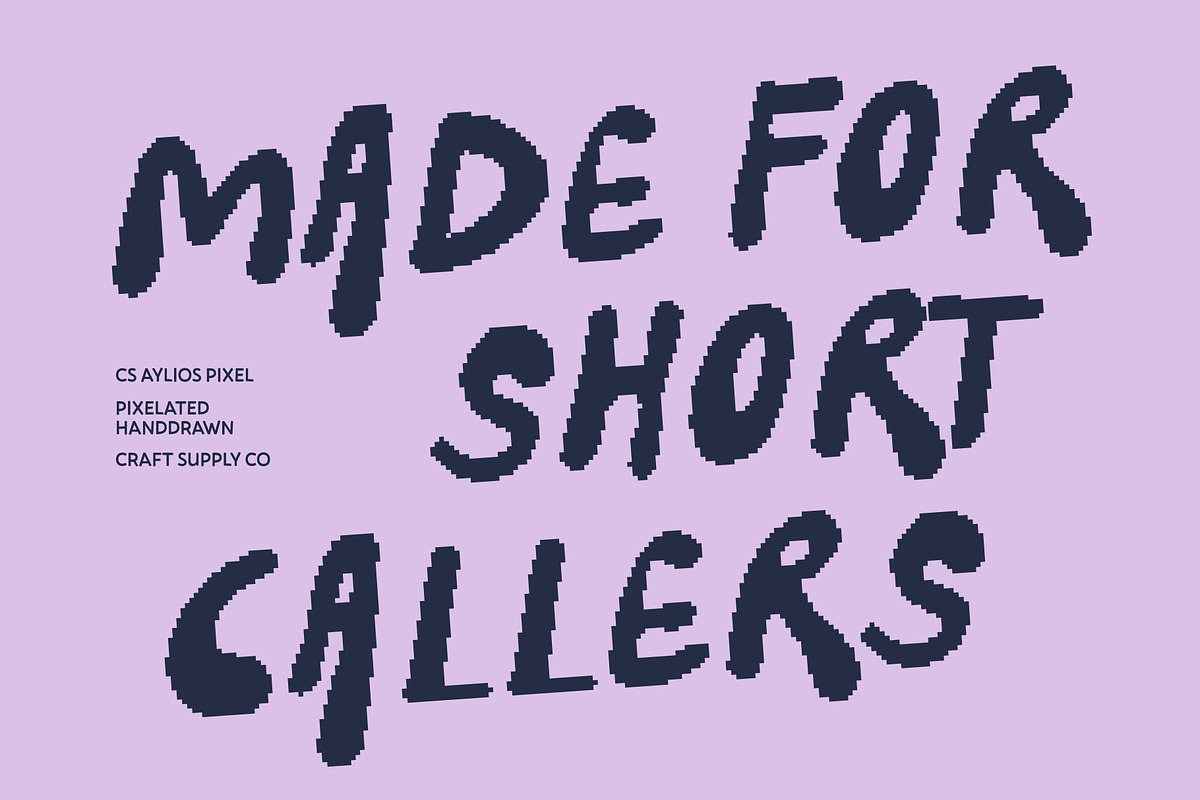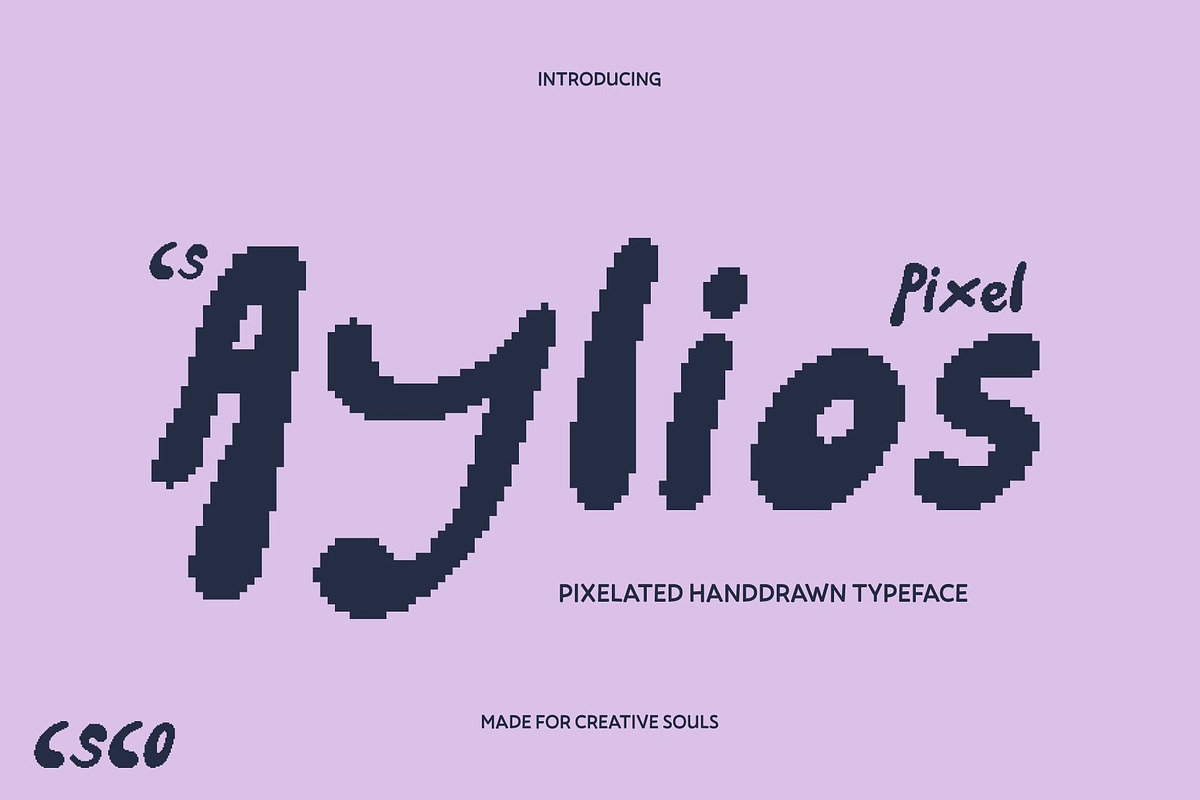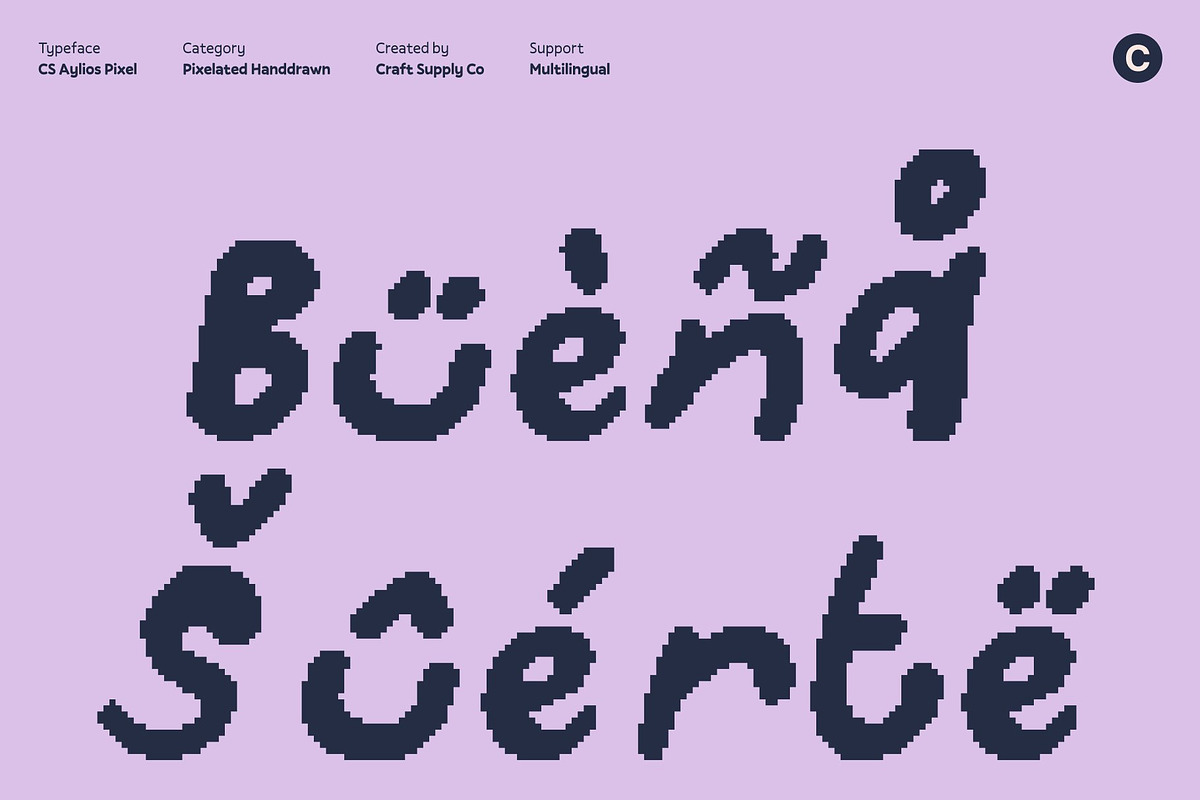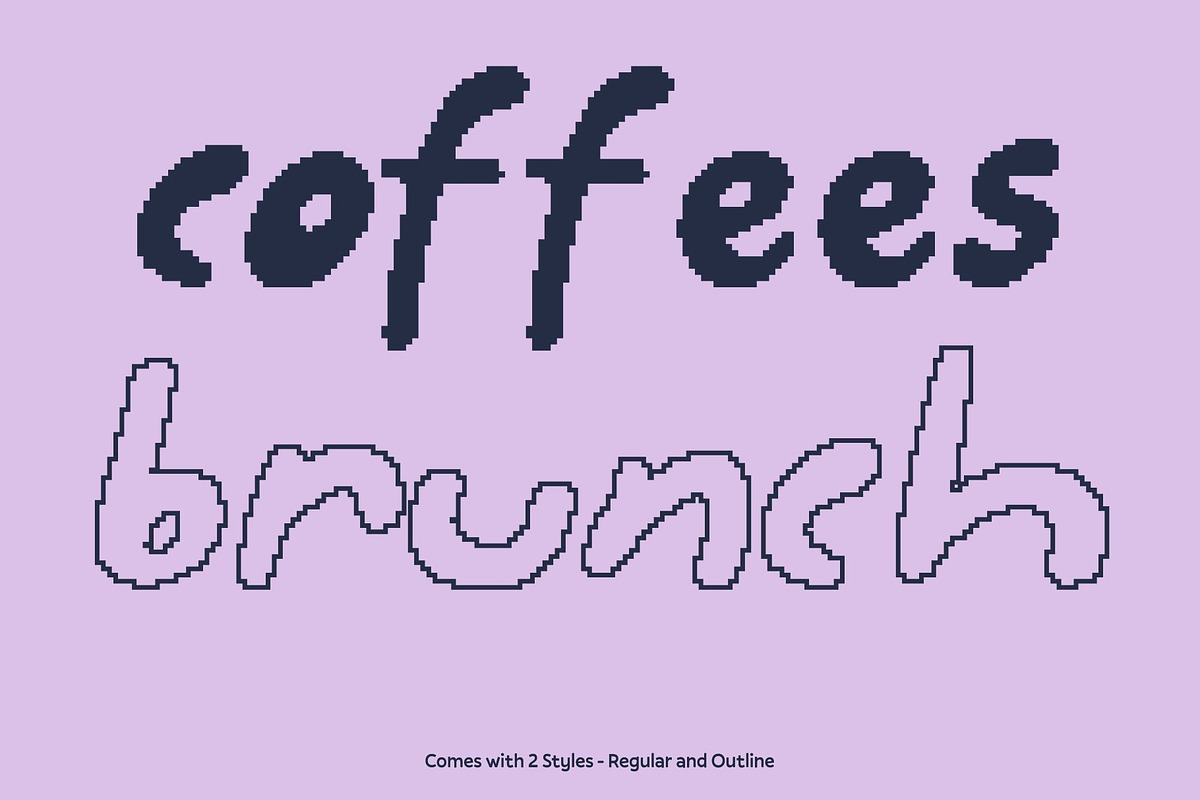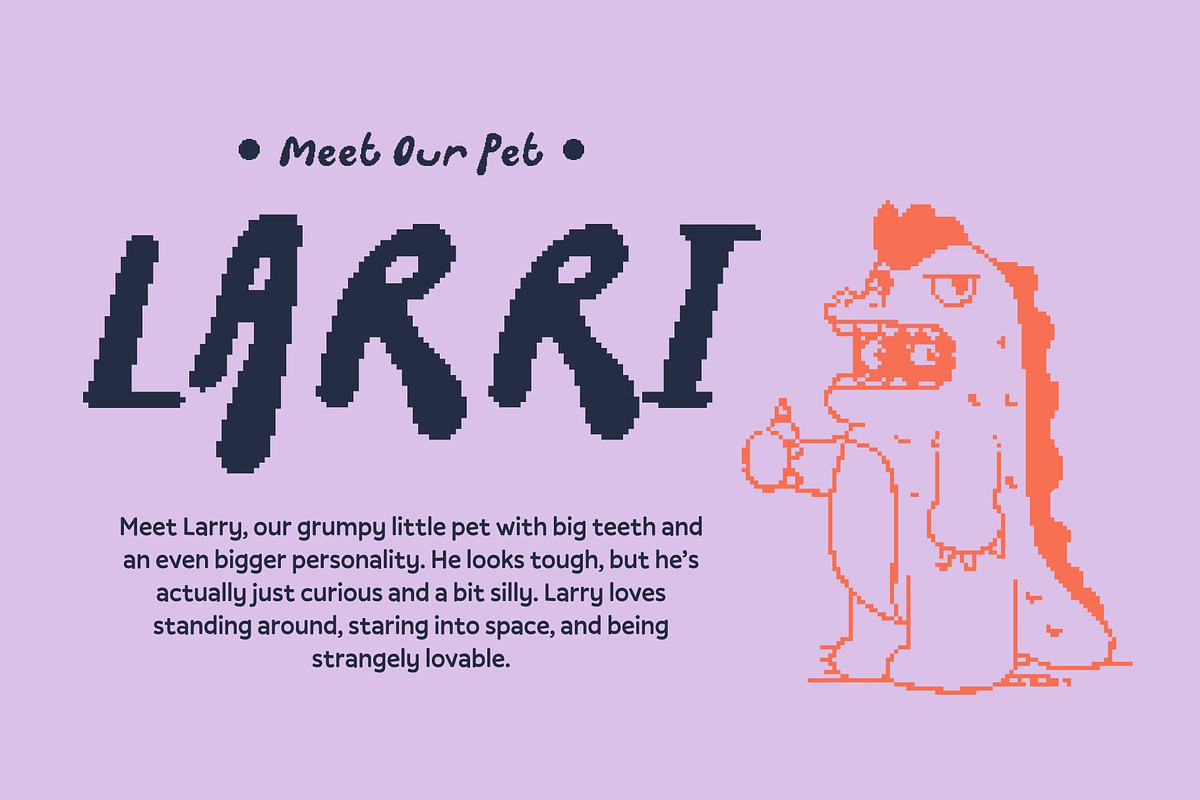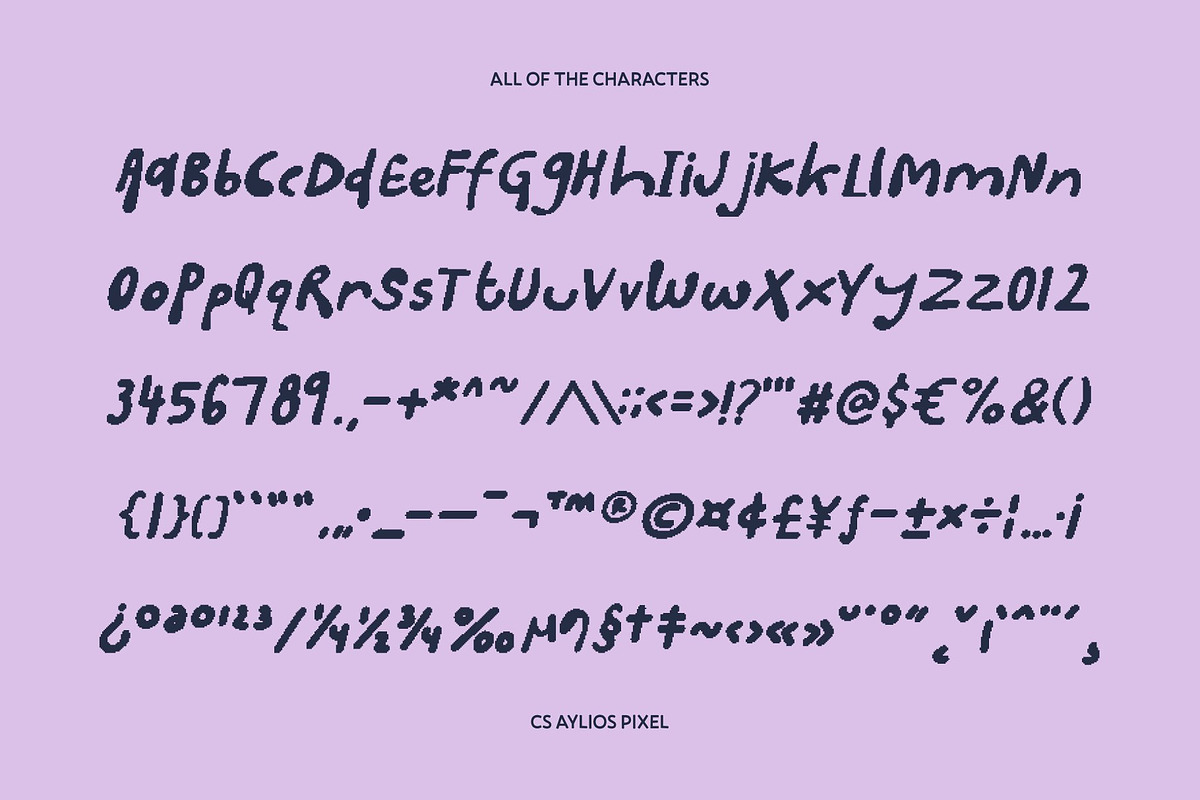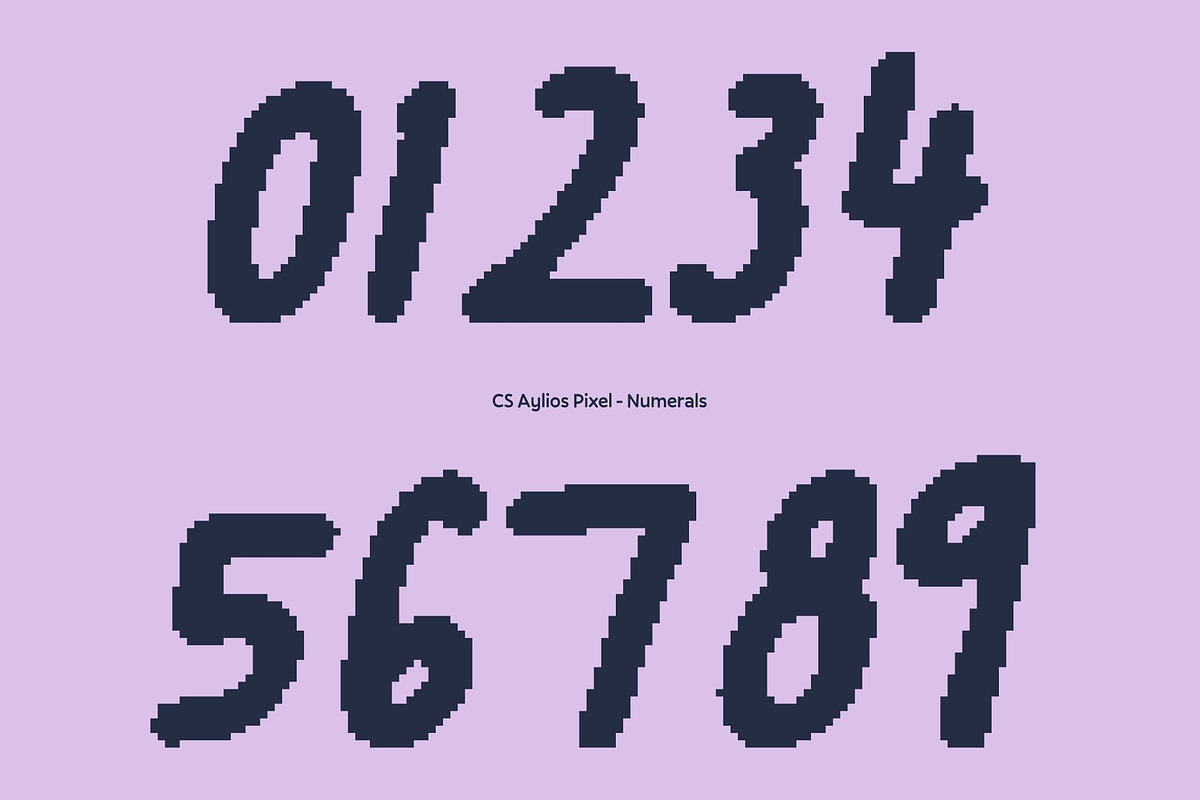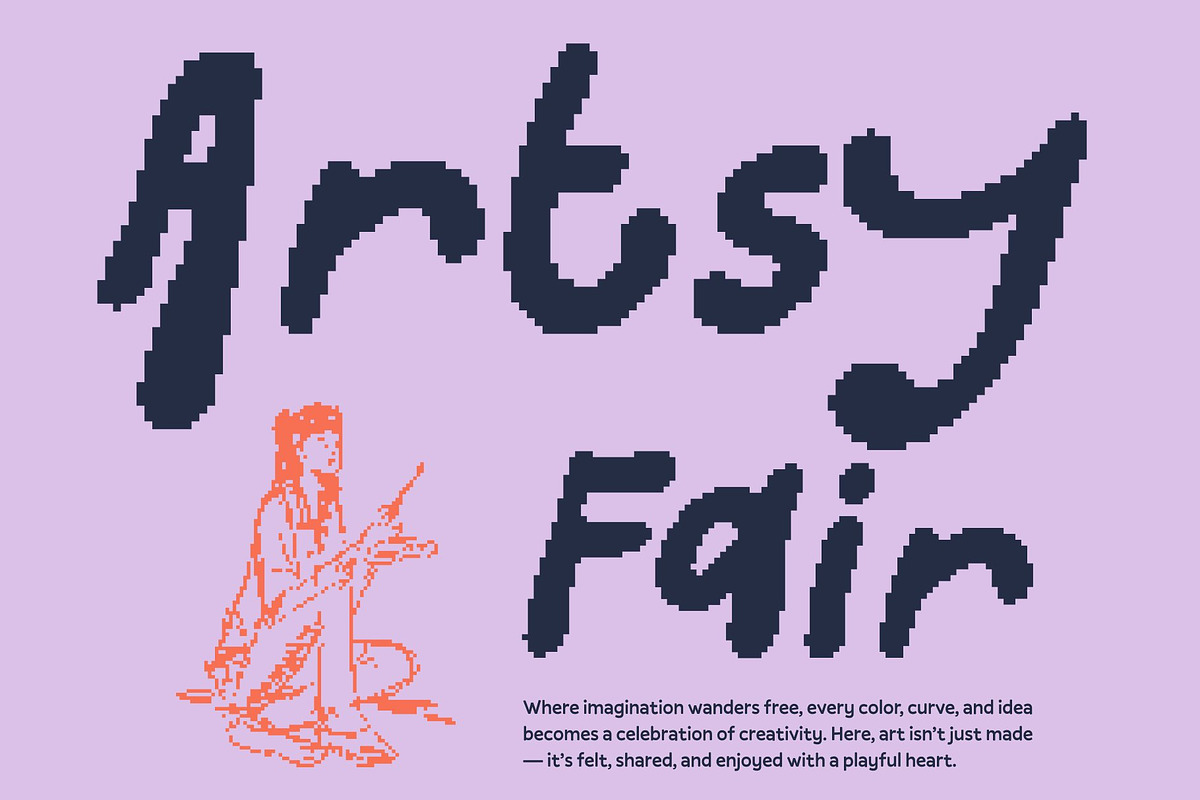
CS Aylios Pixel
CS Aylios Pixel – Funky Hand-Drawn Display Font with Sweet Groovy Charm
Playful Groovy Shapes with Pixel-Drawn Personality This is a funky hand-drawn display font bursting with groovy energy and playful charm, enhanced by a distinctive pixel style. Each letter is shaped with bold curves and decorative forms inspired by the smooth, swirling motion of sweet cream, while pixel details introduce a nostalgic digital twist.
Sweet Cream Curves with Retro Digital Flavor The decorative curves bring a creamy, indulgent aesthetic that mimics soft swirls and flowing shapes, while the pixel treatment adds an old-school digital, 8-bit feel. This fusion of organic hand-drawn forms and pixel structure results in a font that feels both sweet and retro-modern. Its funky visual appeal makes every word feel lively, eye-catching, and full of character.
Perfect for Fun Branding with a Retro-Groovy Edge This font is ideal for brands that embrace a youthful, cheerful, and creative identity. Whether used in logos, packaging, or playful branding concepts, the pixel style adds a nostalgic digital vibe that enhances its uniqueness. It works especially well for confectionery, lifestyle brands, cafés, and creative businesses that want to stand out with charm and originality.
Ideal for Posters, Social Media, and Creative Display Designs From vibrant posters and event graphics to bold social media visuals, this font shines as a standout display choice. Its expressive hand-drawn movement combined with pixel detailing makes it perfect for headlines, decorative typography, and creative layouts.